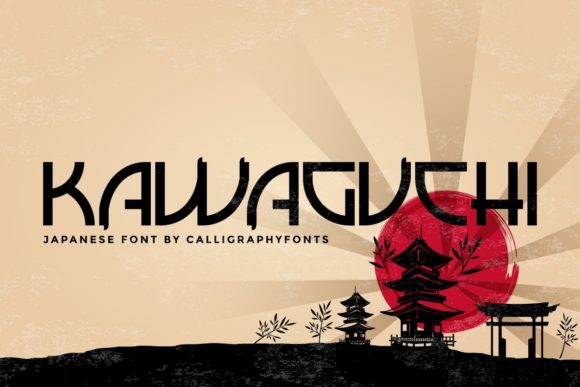
Introducing Kawaguchi Font, a calligraphic masterpiece that captures the essence of Japanese artistry like no other. This display font, hand-crafted by the masters of CalligraphyFonts, is more than just a font - it's an invitation to embark on a creative odyssey.
Immerse yourself in the beauty of Kawaguchi's intricate strokes, each line dancing with elegance and grace. The smooth curves and sharp angles harmonize to create a visual symphony that captivates the beholder's heart. Whether you're a designer seeking a unique touch or an entrepreneur looking to make a bold statement, Kawaguchi Font is your muse.
Picture your designs adorned with Kawaguchi's charm, whether it's a food menu that tickles taste buds or a poster that announces an event with flair. Its boldness commands attention, while its sophistication adds a touch of class. Kawaguchi effortlessly elevates your creations, transforming them from ordinary to extraordinary.
Explore the endless possibilities that lie within Kawaguchi's versatility. It seamlessly adapts to a myriad of design styles, from rustic charm to modern minimalism. Experiment with different colors and textures to discover hidden dimensions of beauty.
Kawaguchi Font is not just a tool; it's a gateway to a world of creativity where imagination reigns supreme. Embrace its magic, let your ideas flow freely, and witness the birth of designs that leave an unforgettable mark.